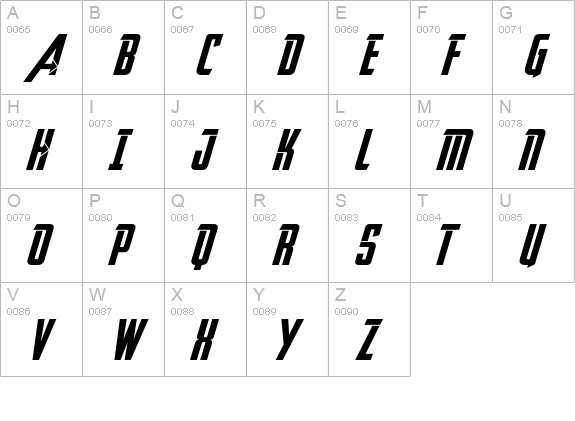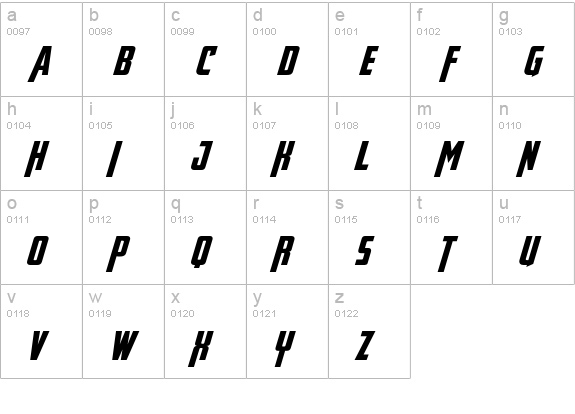
Avengeance Heroic Avenger Italic Font Details
Avengeance Heroic Avenger Italic is a distinctive, italic variant in the Avengeance typeface family \xE2\x80\x94 well suited to design and typography projects.
Avengeance Heroic Avenger Italic font is a thrilling and captivating typeface that exudes a sense of power and determination. With its bold and slanted letterforms, this font is perfect for adding a touch of intensity and heroism to any design project. Designed with utmost care and attention to detail, Avengeance Heroic Avenger Italic font is a true testament to the artistry of typography. Its sharp edges and strong lines give it a robust and commanding presence, making it an ideal choice for titles, headlines, posters, and other eye-catching design elements. What makes Avengeance Heroic Avenger Italic font even more exciting is the fact that it is freely available to download at FontsMarket.com. This means that you can easily access and use this remarkable font without any cost or restrictions. Whether you are a graphic designer, a content creator, or simply someone looking to add a touch of heroism to their creative projects, Avengeance Heroic Avenger Italic font is a valuable resource that you can count on. So go ahead and unleash your creativity with Avengeance Heroic Avenger Italic font. Its bold and dynamic aesthetic will surely elevate your designs, helping you to captivate and inspire your audience. Download it for free now at FontsMarket.com and let the heroic avenger within you shine through your design work.